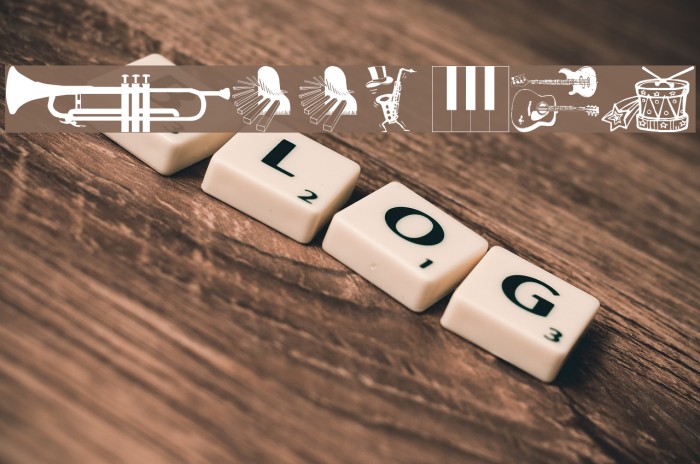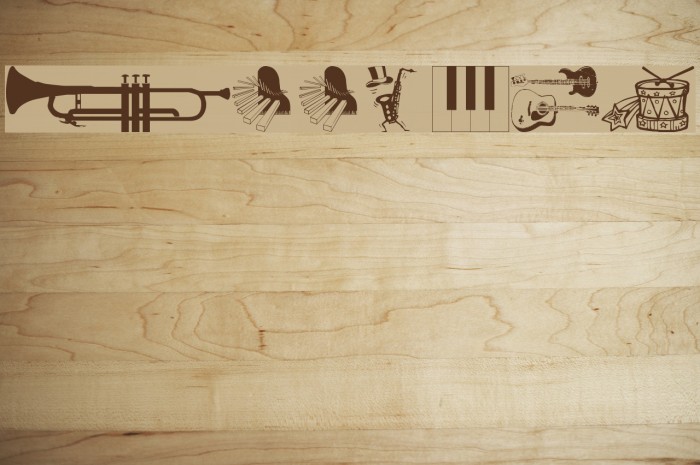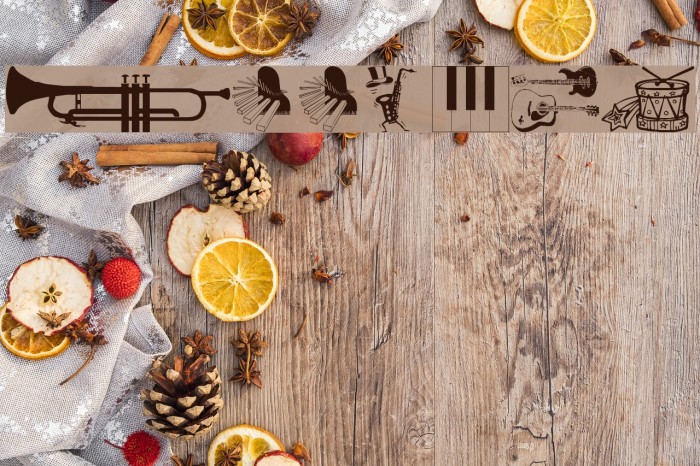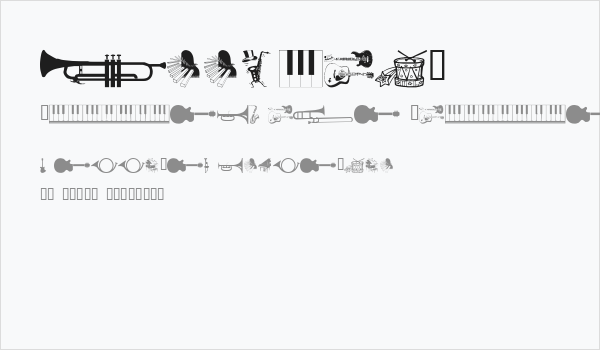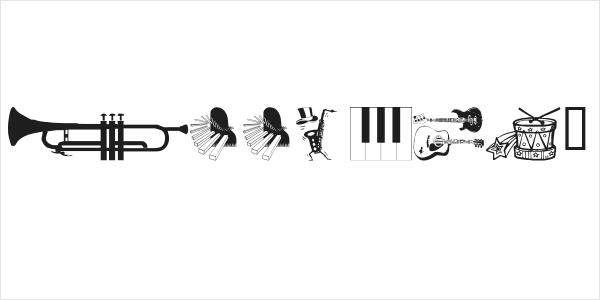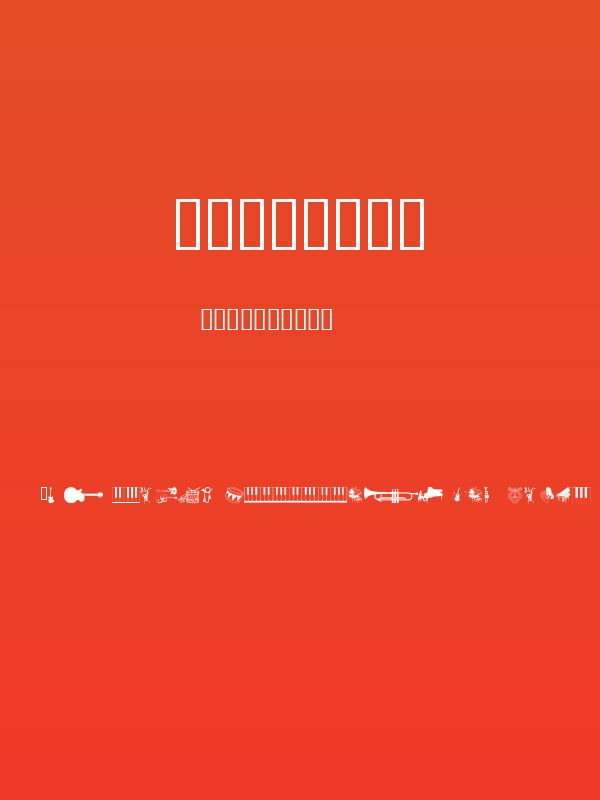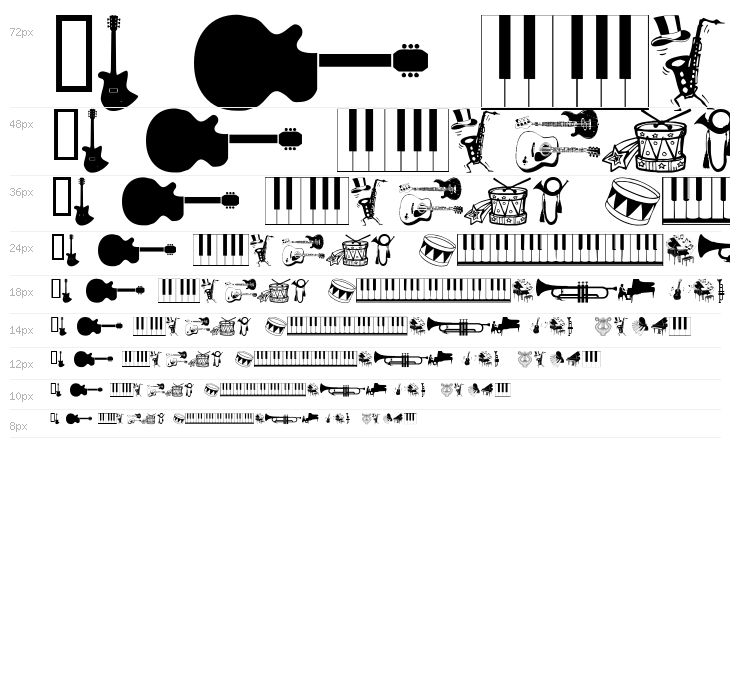
wmmusic1 Font
wmmusic1 Description
A decorative dingbat font featuring a variety of musical instrument illustrations, including brass, strings, percussion, and keyboards. Each character is represented by a different detailed black-and-white music-related icon.
| Overall Style | Decorative, Thematic |
| Use Case | Icons, Decorative elements, Themed graphics |
| Proposed Projects | Music event posters, educational materials, music-themed invitations, decorative headings, and creative design projects. |